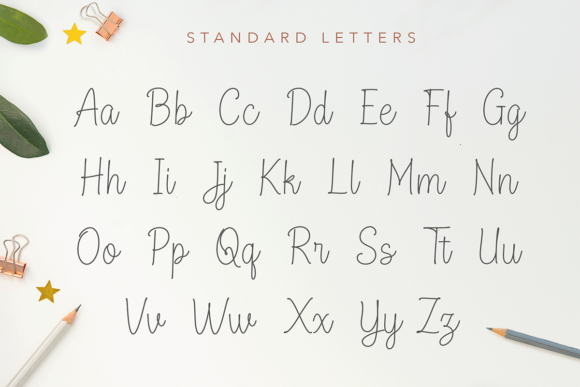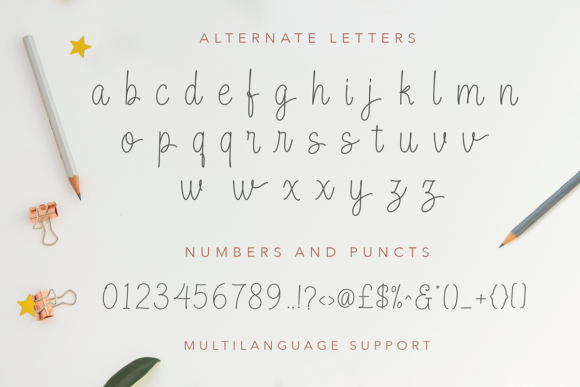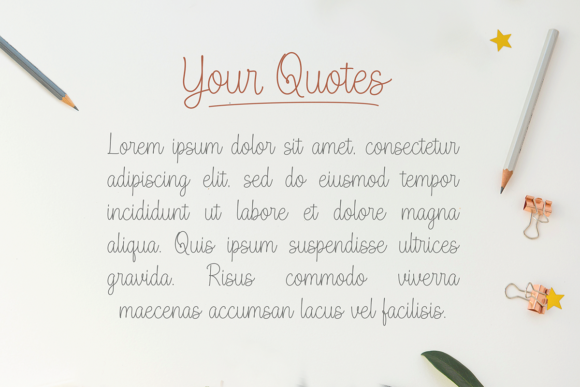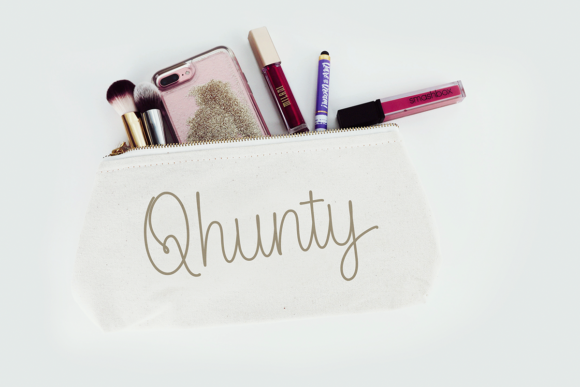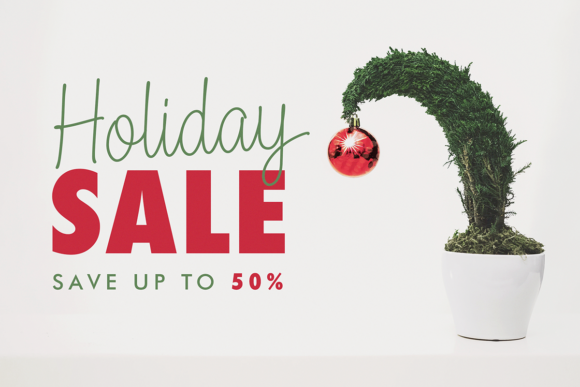
Introduction to Killos Font
Killos is a magical script font carefully created with a touch of elegance.
This font is PUA encoded which means you can access all of the glyphs and swashes with ease .
Key Features of Killos Font
Why Choose Killos Font?